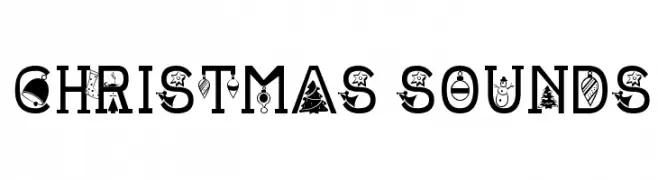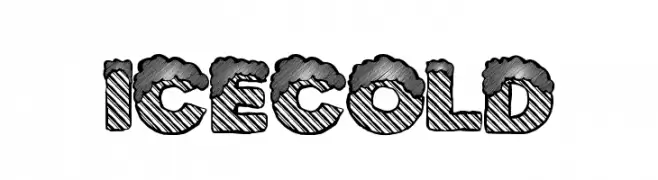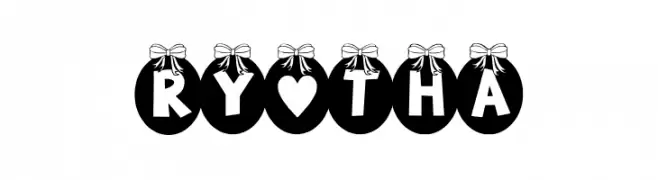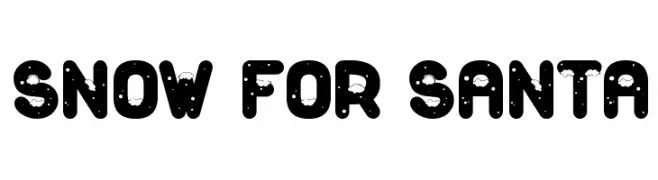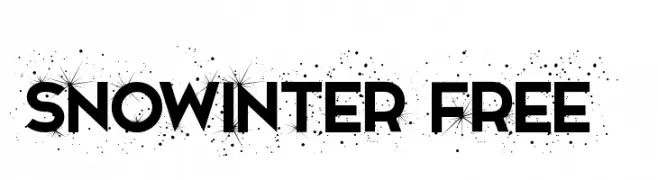
A festive decorative font with Christmas-themed elements in uppercase letters.
A bold, geometric font with decorative snowflake patterns.
A playful, icy font with bold, textured letters resembling snow-covered surfaces.
A decorative font with intricate snowflake patterns within bold characters.
A festive, decorative font with Christmas light patterns.
A playful, 3D cartoon block font with a Christmas theme and snow-capped letters.
Hand-drawn decorative font with unique Christmas tree illustrations for each character.
Hand-drawn Christmas tree illustrations replace standard characters for a festive, decorative look.
A playful, decorative font with bold letters inside ornament-like circles topped with bows.
A bold, festive font with snow-themed decorations on rounded characters.